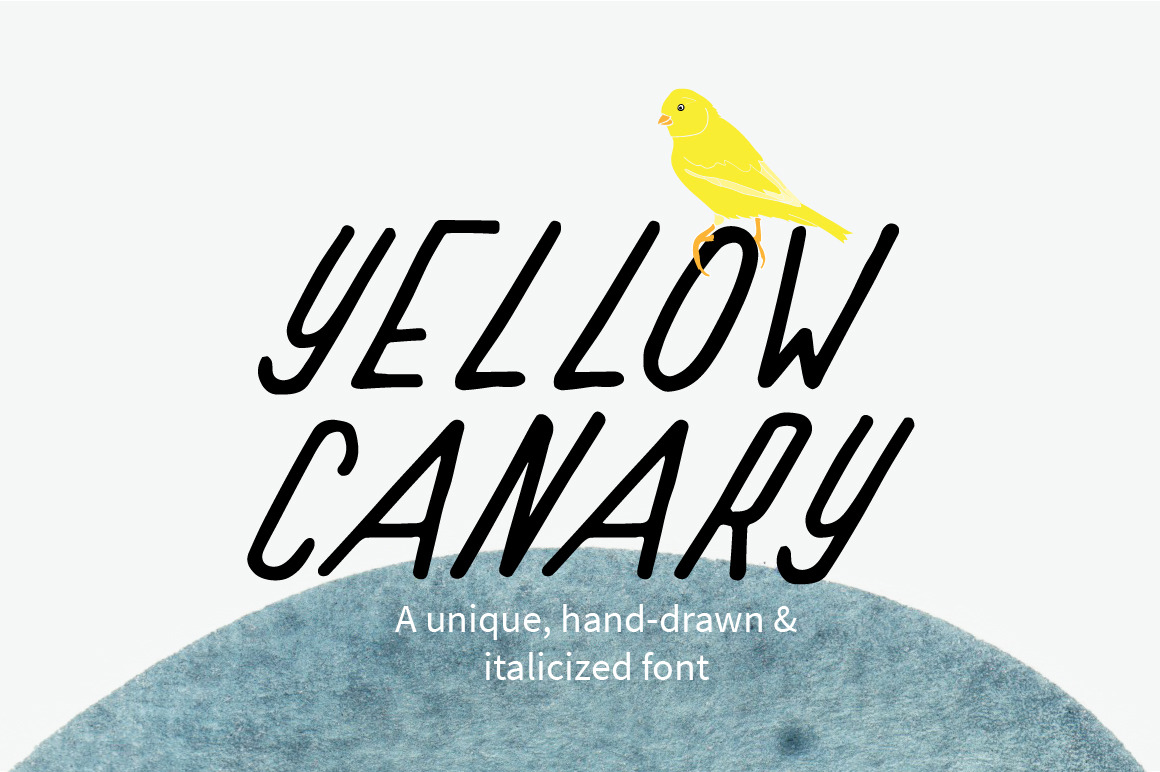
Yellow Canary Font
The Yellow Canary font is a perfect way to add a hand drawn lettering touch to your designs, whether you use it on a printable greeting card, in a scrapbook, or elsewhere.
The font was carefully created by hand using a thin brush marker and features a full set of glyphs including uppercase letters, numbers, and symbols.
Add this quirky hand lettered font to your font repertoire and use it for any number of occasions.